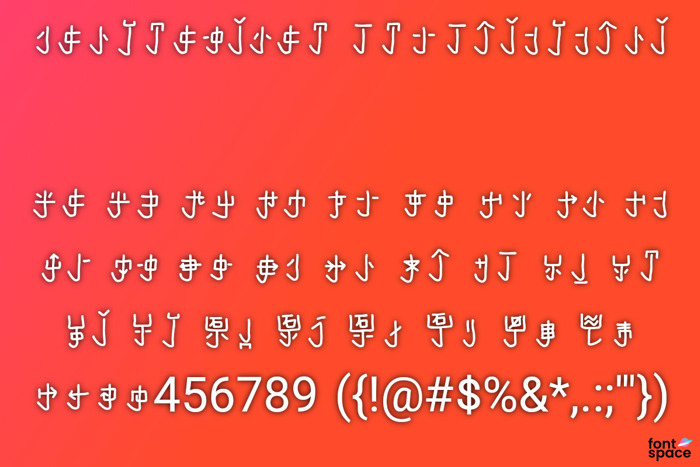
mantrakshar prepositions Font
It is an ideographic language font used for writing ideographic language alongaode the mandarin or chinese or japanese and korean hanza language ..